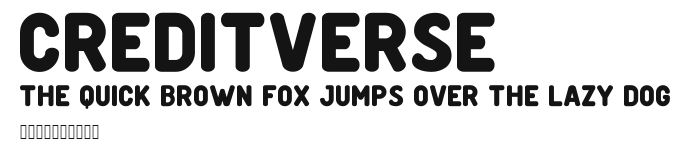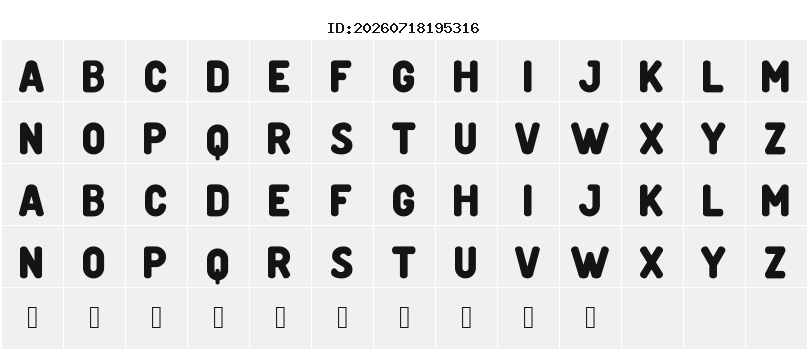
Creditverse.ttf is a modern, elegant sans-serif font designed for ultimate readability and visual harmony. Perfect for branding, headlines, web design, and print materials.